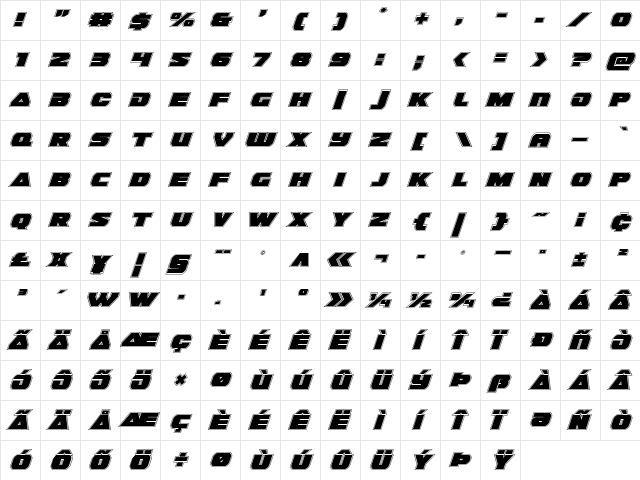
Guardian Academy Italic Italic
Design Context for Guardian Academy Italic Typeface
Guardian Academy Italic offers clean, dependable letterforms without strong stylistic allegiance, making it a practical choice for designers who need flexibility. The dynamic lean of this cut emphasises speed and emphasis in any layout.
Pro Tip: Use Guardian Academy Italic for emphasis, pull quotes, and subheadings where its slanted energy can add rhythm to the layout.